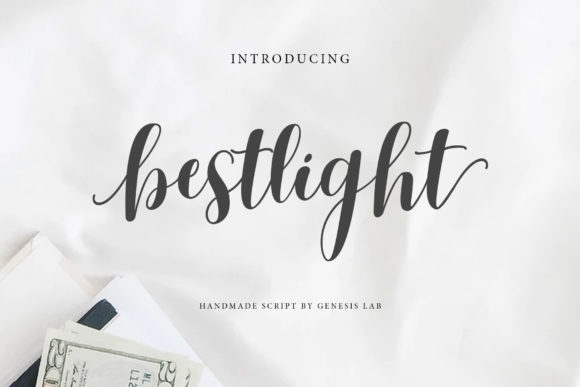
Unleash the beauty of your digital signature with Bestlight, a remarkable handwritten font crafted by genesislabstudio. With its sharp hand and charming style, Bestlight brings a touch of elegance and authenticity to your digital presence.
Step into a world of sophistication as Bestlight transforms your digital signature into a personal masterpiece. Its trendy, natural, and gentle appearance adds a unique charm to your emails, documents, and online interactions.
Immerse yourself in the versatility of Bestlight, effortlessly complementing a wide range of creative projects. Design eye-catching party invitations that evoke a sense of celebration and joy. Create wedding invitations that exude romance and timeless elegance. Elevate your graduation designs with a font that captures the essence of accomplishment and pride. Craft impactful meeting materials that leave a lasting impression.
With Bestlight, you'll find a font that effortlessly blends aesthetics and functionality. Its intuitive design and PUA encoding ensure ease of use, allowing you to seamlessly access all glyphs and swashes. Unleash your creativity and make a statement with Bestlight, the font that transforms your digital signature into an unforgettable expression of your individuality.